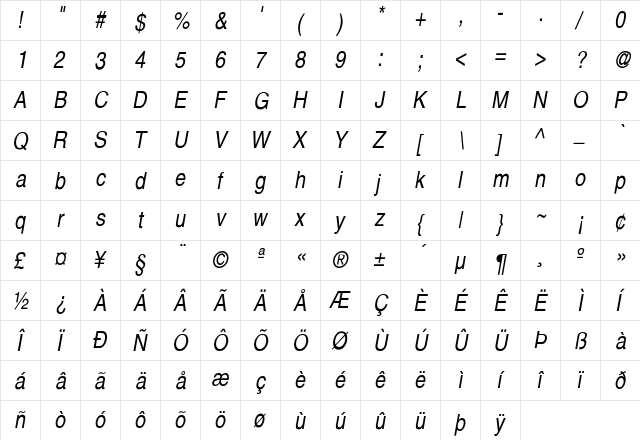
Helvetica-Narrow-Oblique Regular
Design Context for Helvetica-Narrow-Oblique Typeface
Helvetica-Narrow-Oblique is a composed and adaptable typeface that performs quietly and consistently across a wide range of design contexts. Its italic angle brings a sense of urgency and motion to the letterforms. The condensed width makes it efficient for tight spaces without sacrificing legibility.
Pro Tip: Use Helvetica-Narrow-Oblique for emphasis, pull quotes, and subheadings where its slanted energy can add rhythm to the layout.